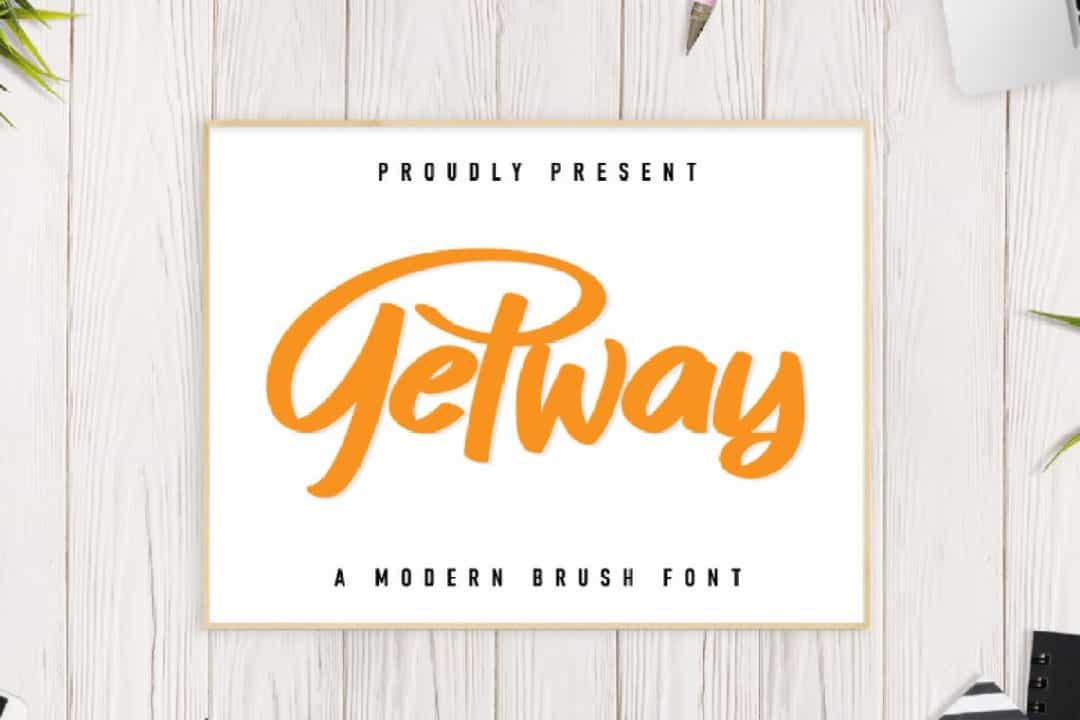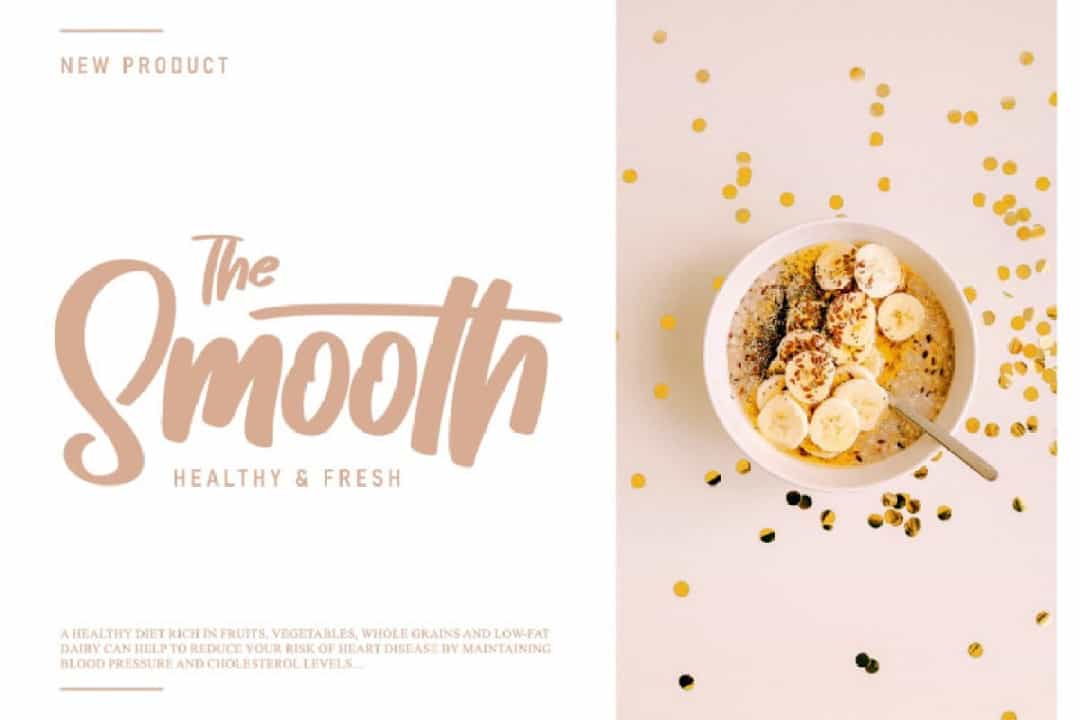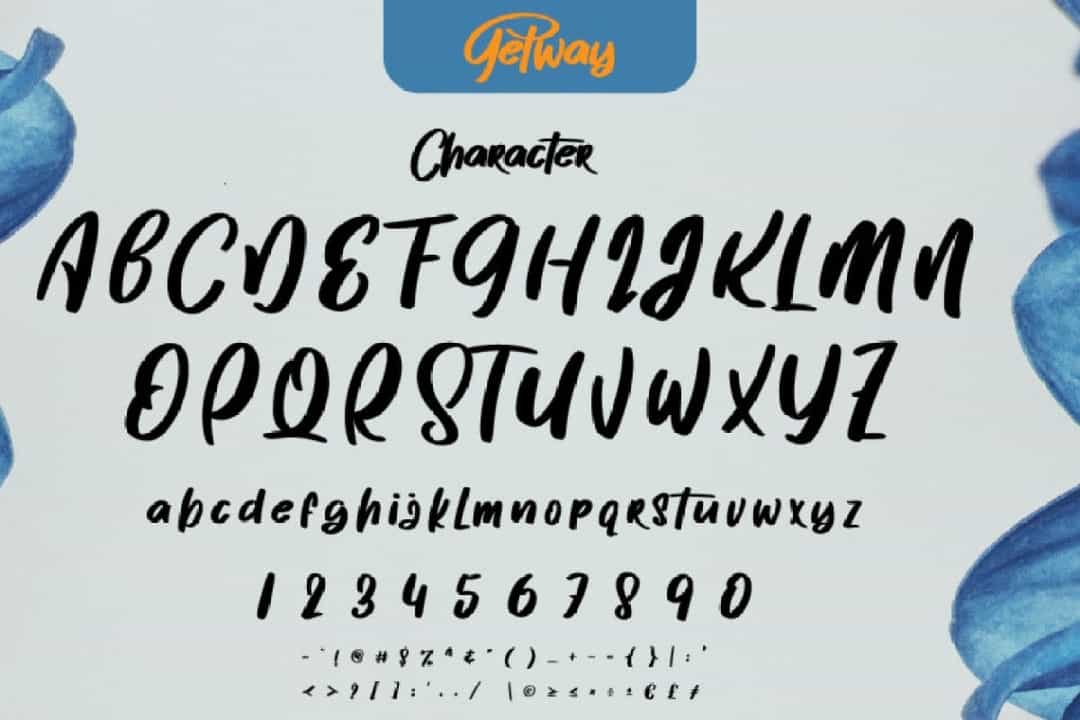
The Getway as a brush font by NoahType will help to give a certain touch in the design. All of the letters were penned with great attention in an effort to make it seem as if it was written by hand and the result was perfect on each and every character. With these fonts, we aim at a dynamic look and feel to make them stand out when used in the future – or example when you want an ‘s’ with a drawing that include the letter ‘t’, just type in this format for the first time of using Getway ligate character – ideal for incorporating creativity and sophistication in any design work!